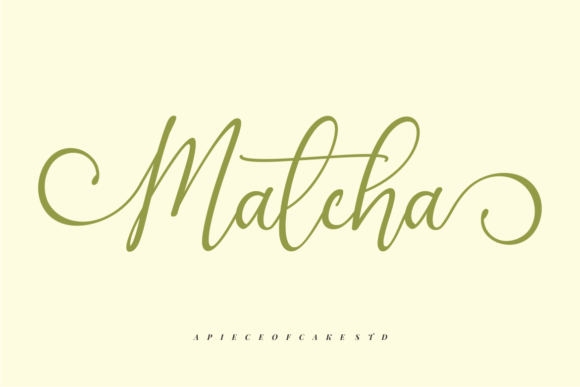
Step into a world of visual enchantment with Matcha Font, a script font that weaves a spell of elegance and artistry. Crafted with meticulous care and a touch of magic, Matcha Font is the ultimate choice for those seeking a font that transcends the ordinary.
Unleash your creativity and let Matcha Font transform your digital designs into breathtaking masterpieces. Whether you're a seasoned designer or just starting your creative journey, Matcha Font will elevate your projects to new heights of sophistication and allure.
With its gracefully flowing curves and enchanting ligatures, Matcha Font is the epitome of timeless beauty. Its delicate strokes evoke a sense of nostalgia, while its modern twist keeps it effortlessly chic. Whether you're working on social media posts, invitations, or DIY projects, Matcha Font will add an aura of sophistication and charm that's sure to captivate your audience.
Immerse yourself in the limitless possibilities that Matcha Font offers. From whimsical Instagram posts that capture the eye to heartfelt wedding invitations that leave a lasting impression, Matcha Font is the font that turns your creative vision into a tangible reality.
But Matcha Font is more than just a font; it's a gateway to a world of endless possibilities. Let your imagination run wild and explore the countless ways Matcha Font can enhance your designs. From logos that exude professionalism to posters that radiate creativity, Matcha Font is the font that breathes life into your artistic endeavors.
Join the legion of creative enthusiasts who have discovered the magic of Matcha Font. Experience the joy of crafting designs that resonate with beauty, elegance, and timeless charm. Let Matcha Font be your creative companion, guiding you on a journey where your imagination knows no bounds.